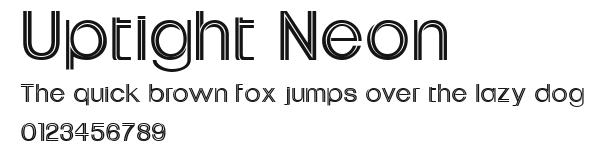
Uptight Neon Preview
• Font Name: Uptight Neon
About Uptight Neon.ttf
Uptight Neon.ttf is a modern, elegant sans-serif font designed for ultimate readability and visual harmony. Perfect for branding, headlines, web design, and print materials.